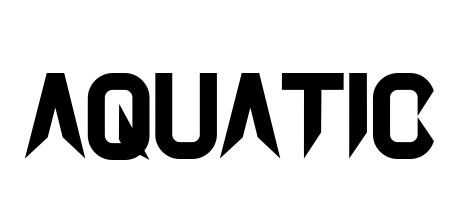
Aquatic
By Indra Gunawan
AQUATIC: A bold, sans-serif typeface, each letter is sharply angular, giving it a rugged, almost aggressive feel. The "A"s are particularly striking, with pointed peaks that suggest underwater spires or jagged rocks. The overall effect is modern, powerful, and slightly edgy, hinting at both strength and the unpredictable nature of the aquatic world.